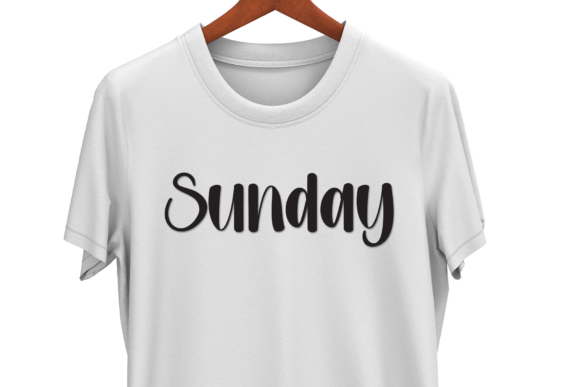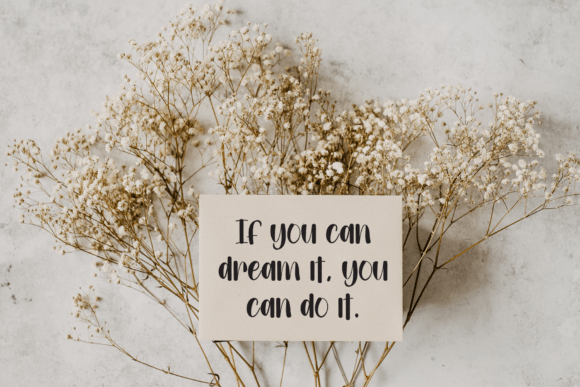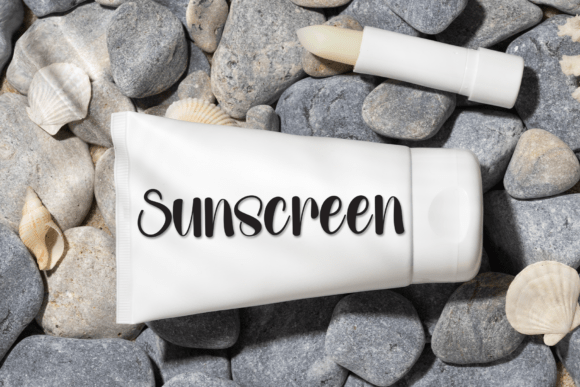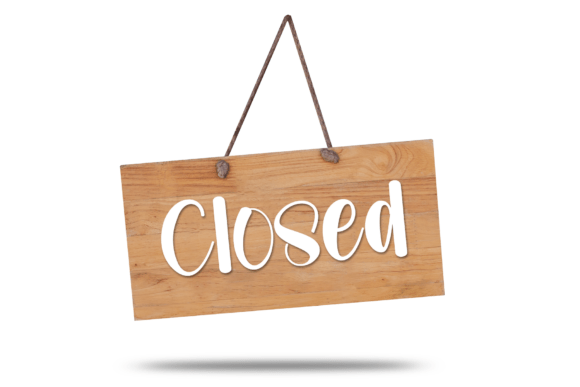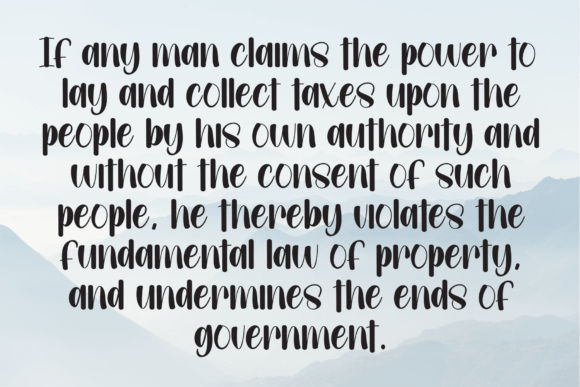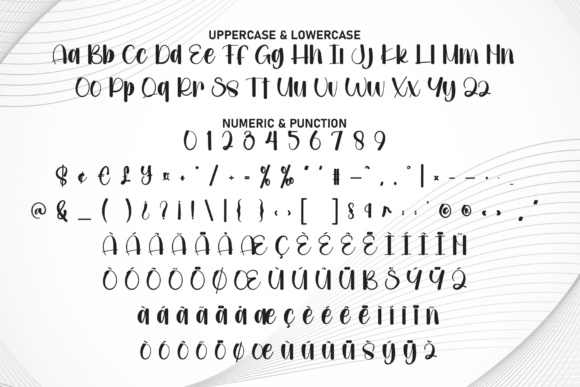
Introduction to Monoline Creative Font Font
Fonts play a crucial role in design, and the Monoline Creative Font font is a typeface that brings both character and versatility to any project. Whether you’re working on a branding project, a website, or a print design, the Monoline Creative Font font offers a unique style that can elevate your work.
| 📌 Font Name | Monoline Creative Font |
| 👤 Author | Strongkeng Old |
Monoline Creative is a sweet and friendly handwritten font.
Key Features of Monoline Creative Font Font
Why Choose Monoline Creative Font Font?
The Monoline Creative Font font is more than just a typeface – it’s a design tool that helps you communicate your message with style and clarity. Its unique character set and versatile design make it suitable for a wide range of applications, from elegant invitations to bold headlines.
With its carefully crafted letterforms and balanced proportions, the Monoline Creative Font font ensures readability and visual appeal across all mediums.
What makes Monoline Creative Font font special?
The Monoline Creative Font font stands out with its unique design, exceptional readability, and versatility across various design applications.